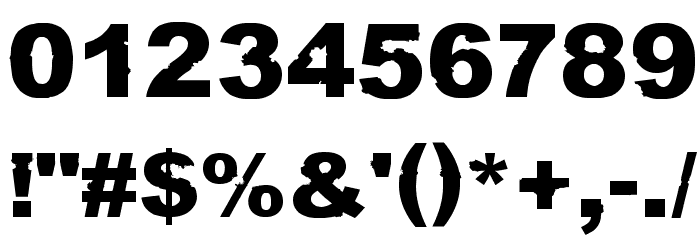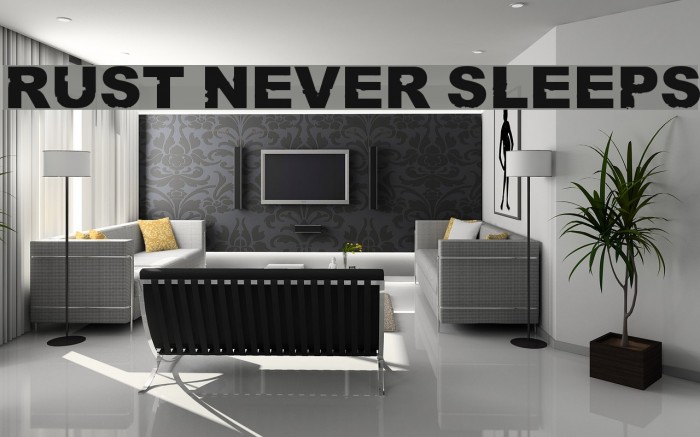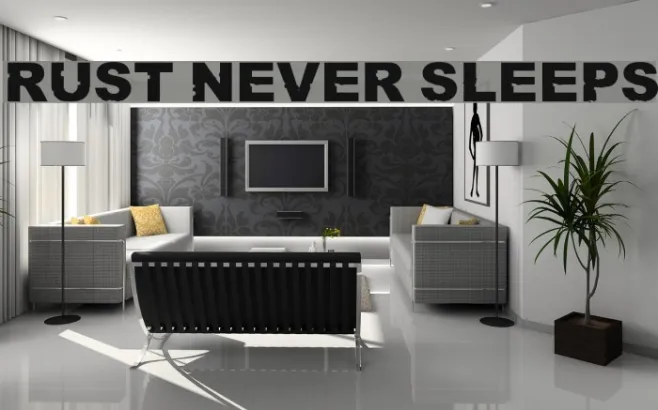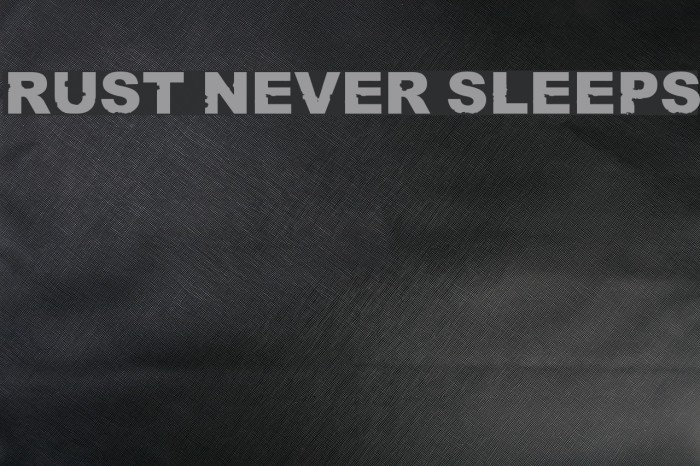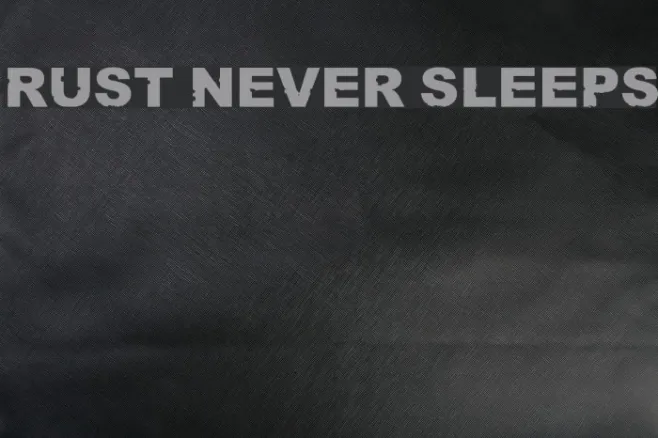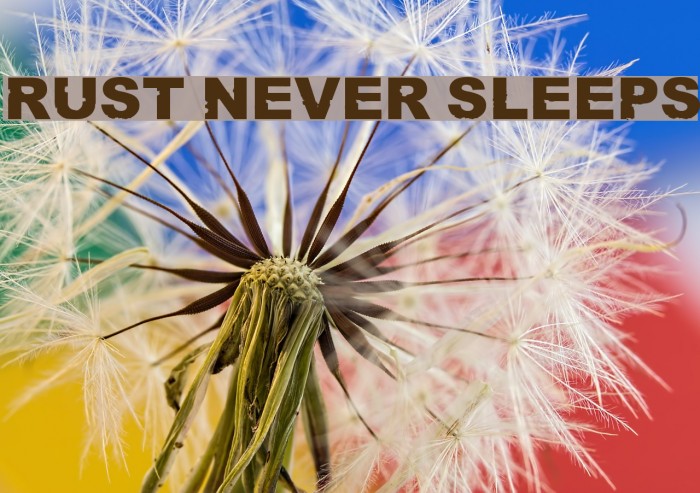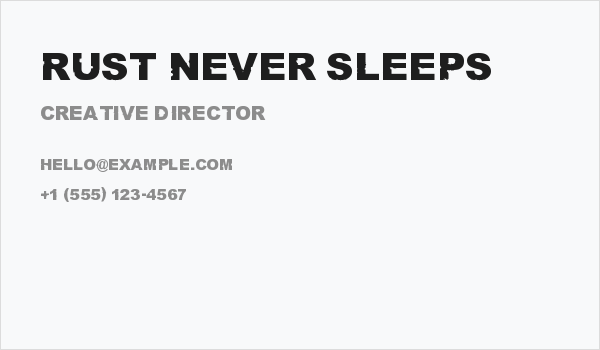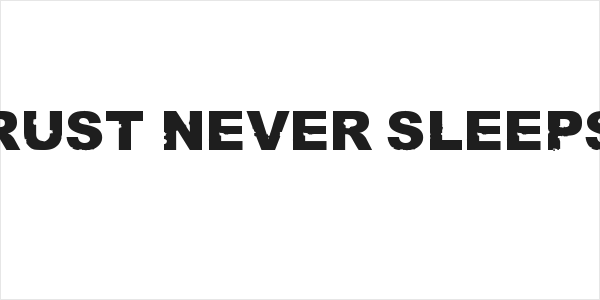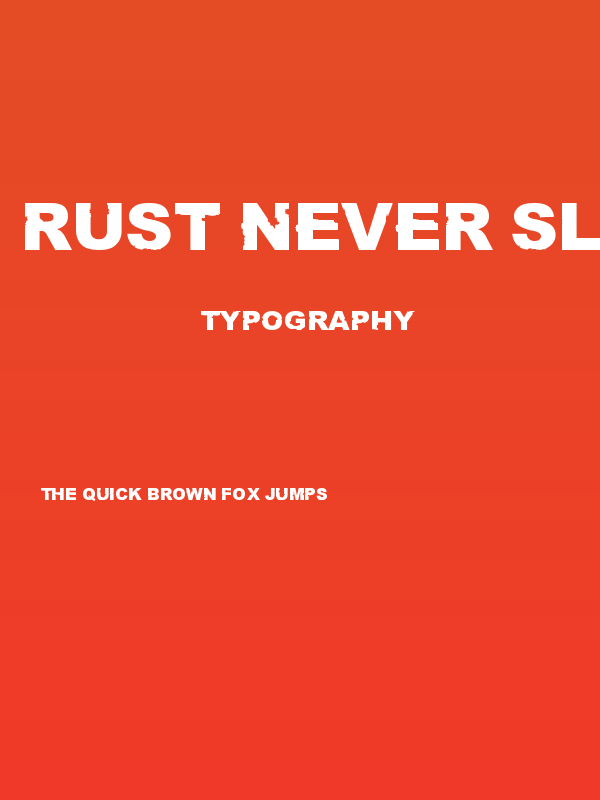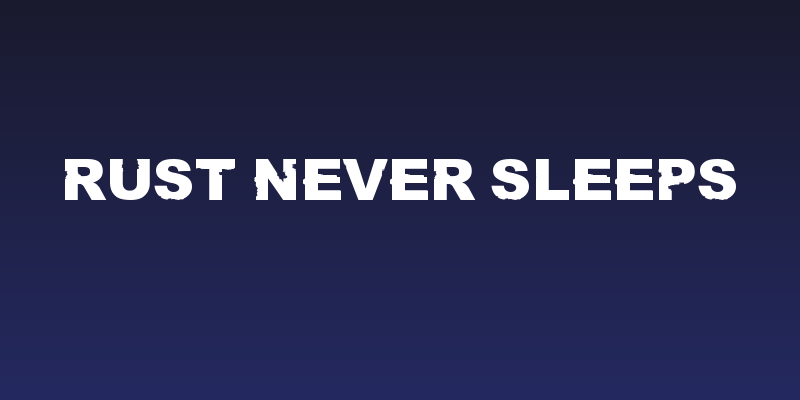
Rust never sleeps Font
Rust never sleeps Description
This font features a bold and distressed style, reminiscent of weathered or corroded metal surfaces. The characters are robust and heavy, with irregular edges that give a worn, industrial appearance. Each letter and number appears to have been eroded or chipped away, adding a rugged texture that suggests age and resilience. The font maintains a consistent weight throughout, ensuring readability despite its decorative elements. Its unique aesthetic makes it suitable for designs that require a gritty, vintage, or industrial feel.
| Overall Style | Vintage, Industrial |
| Proposed Projects | Ideal for posters, album covers, branding for industrial products, or any project needing a vintage or gritty aesthetic. |